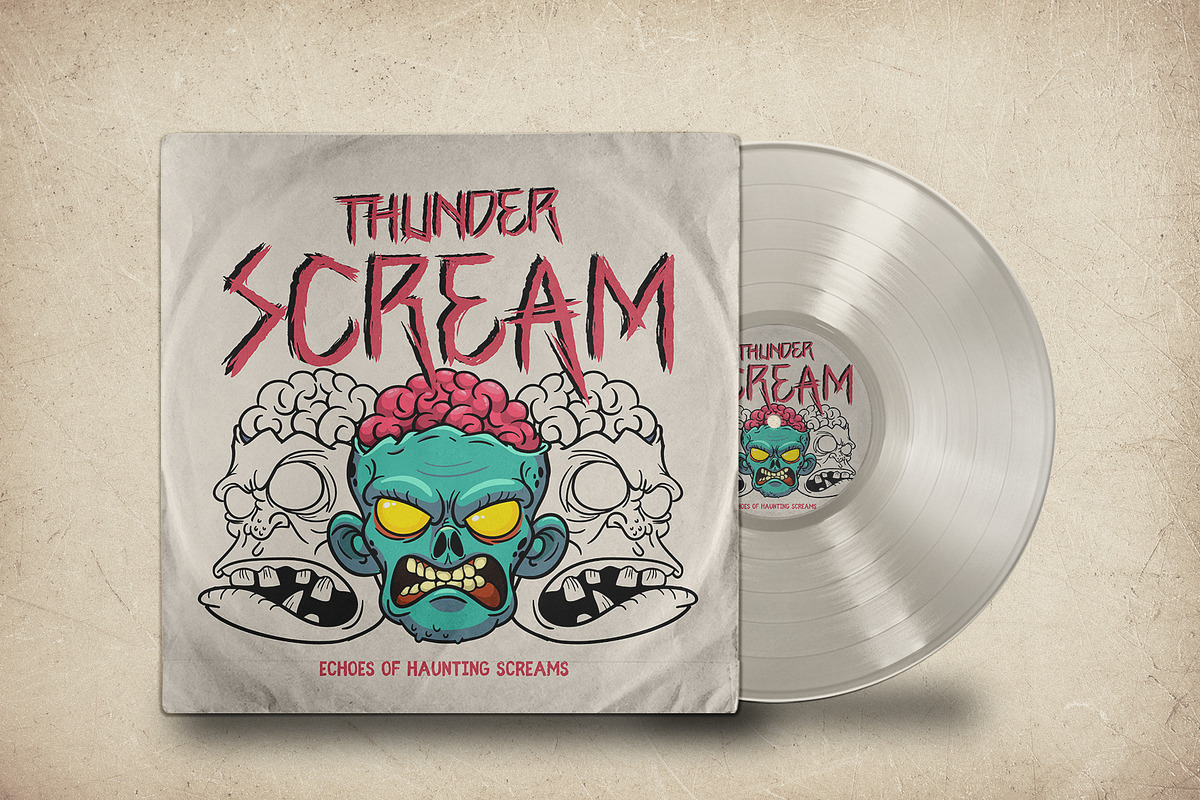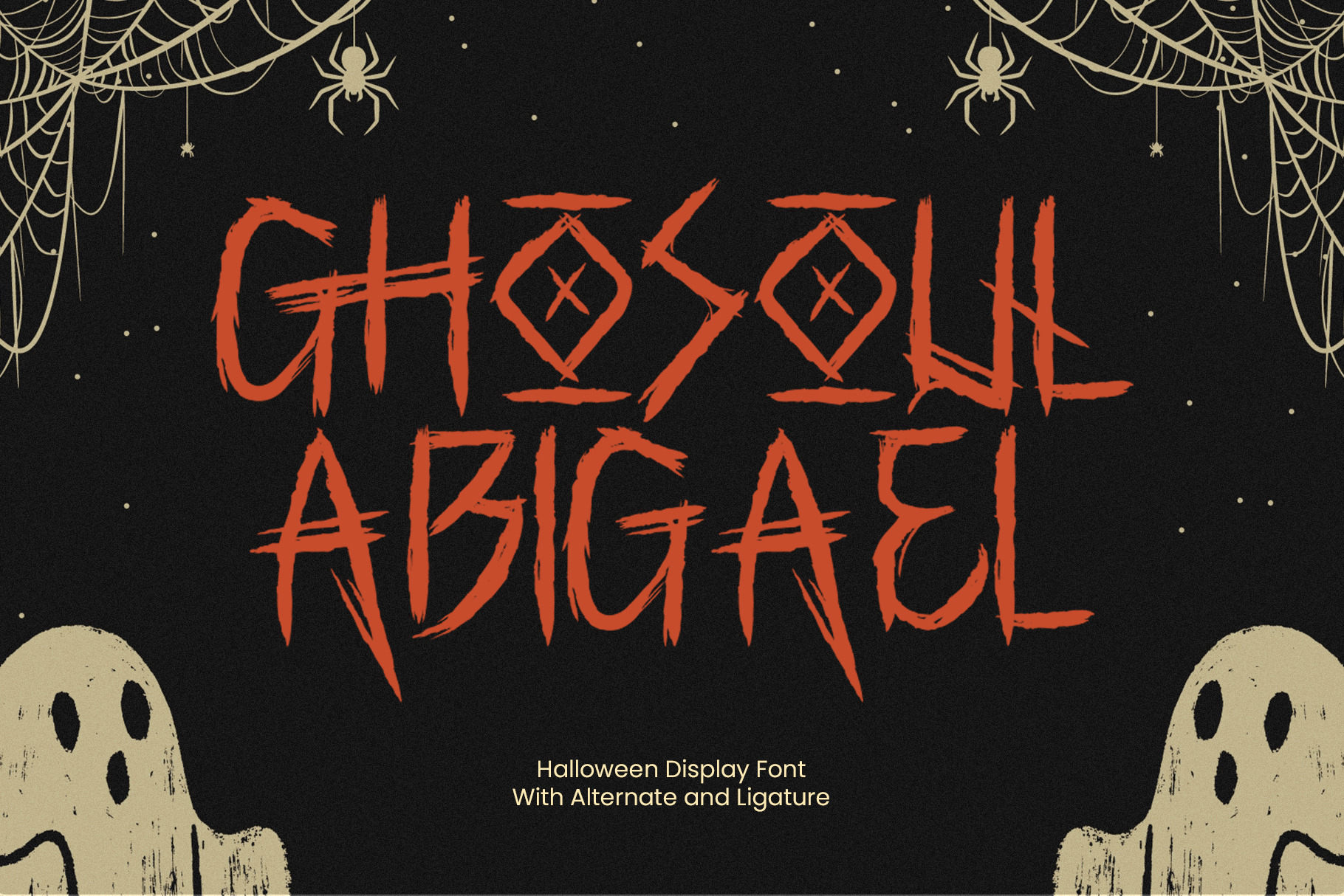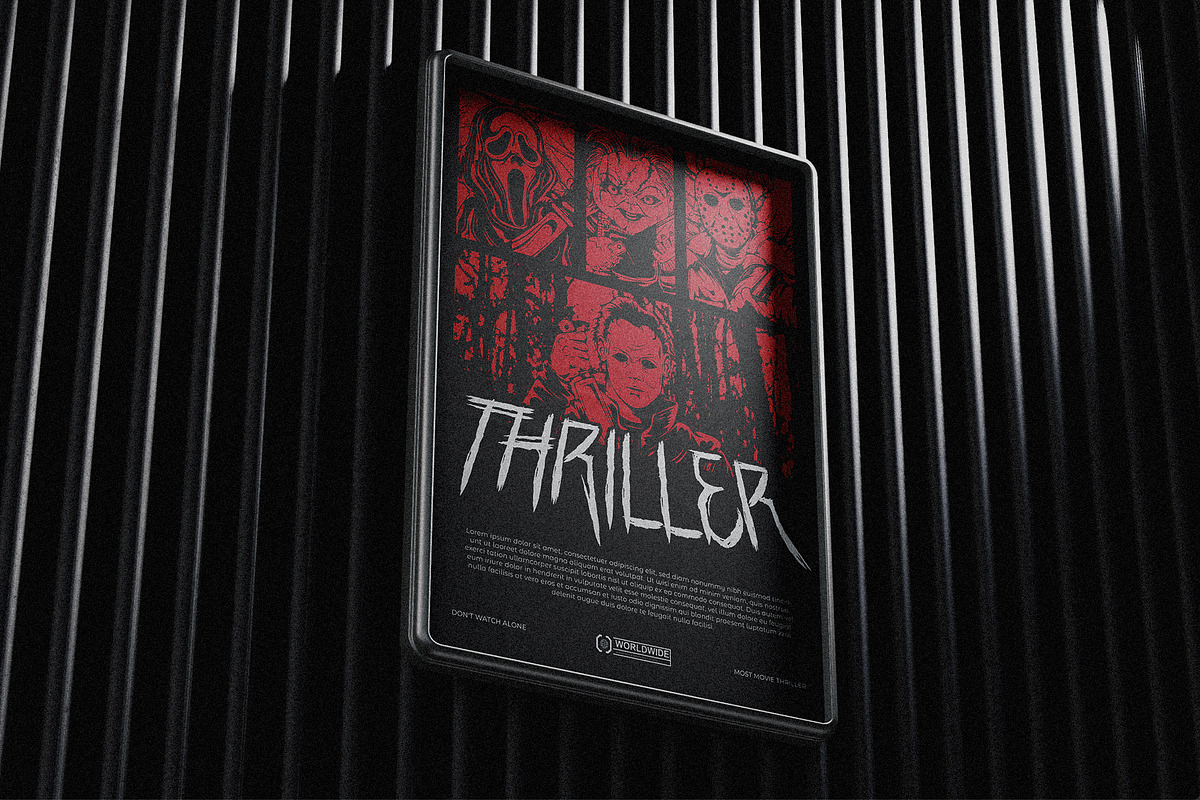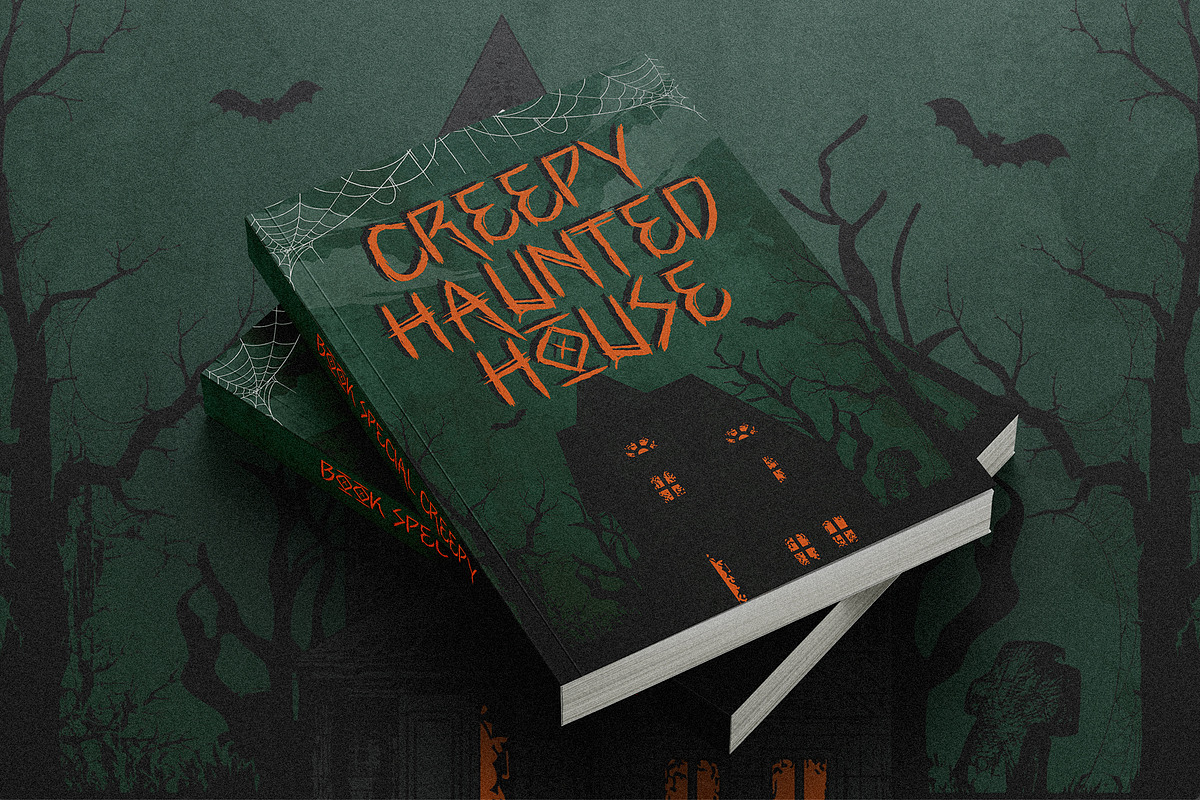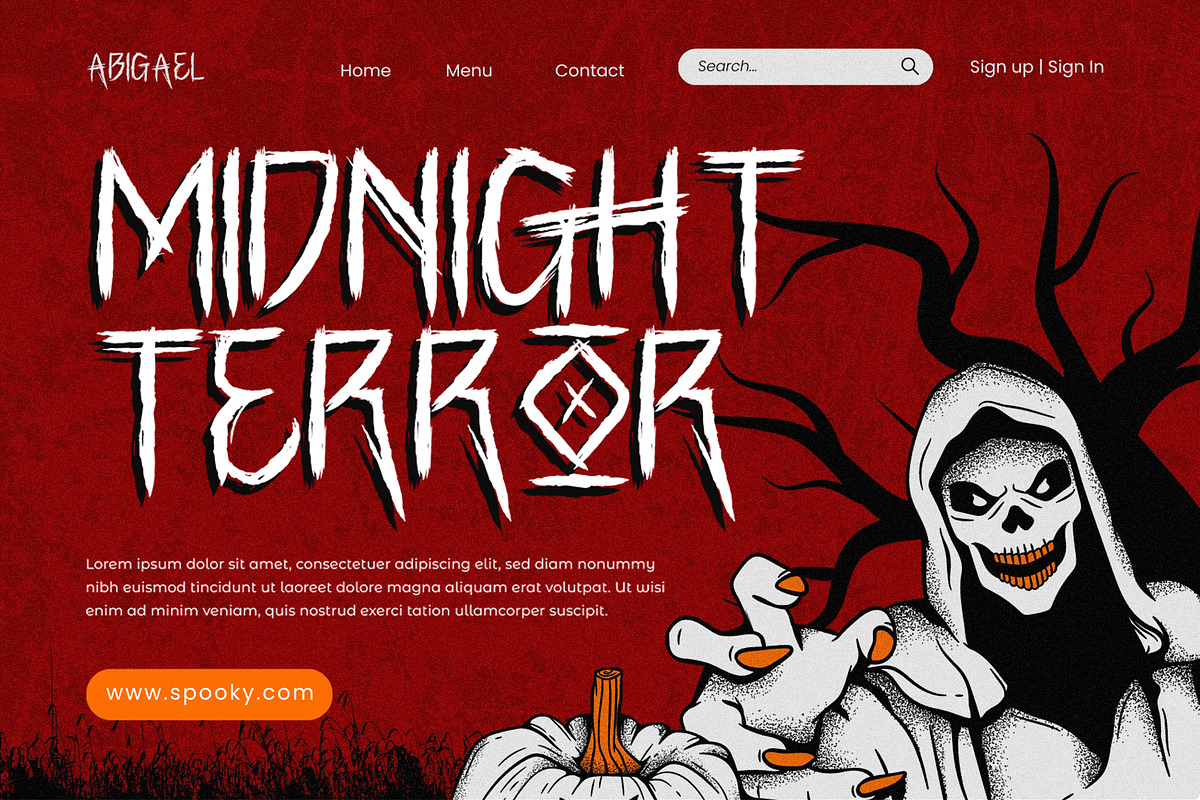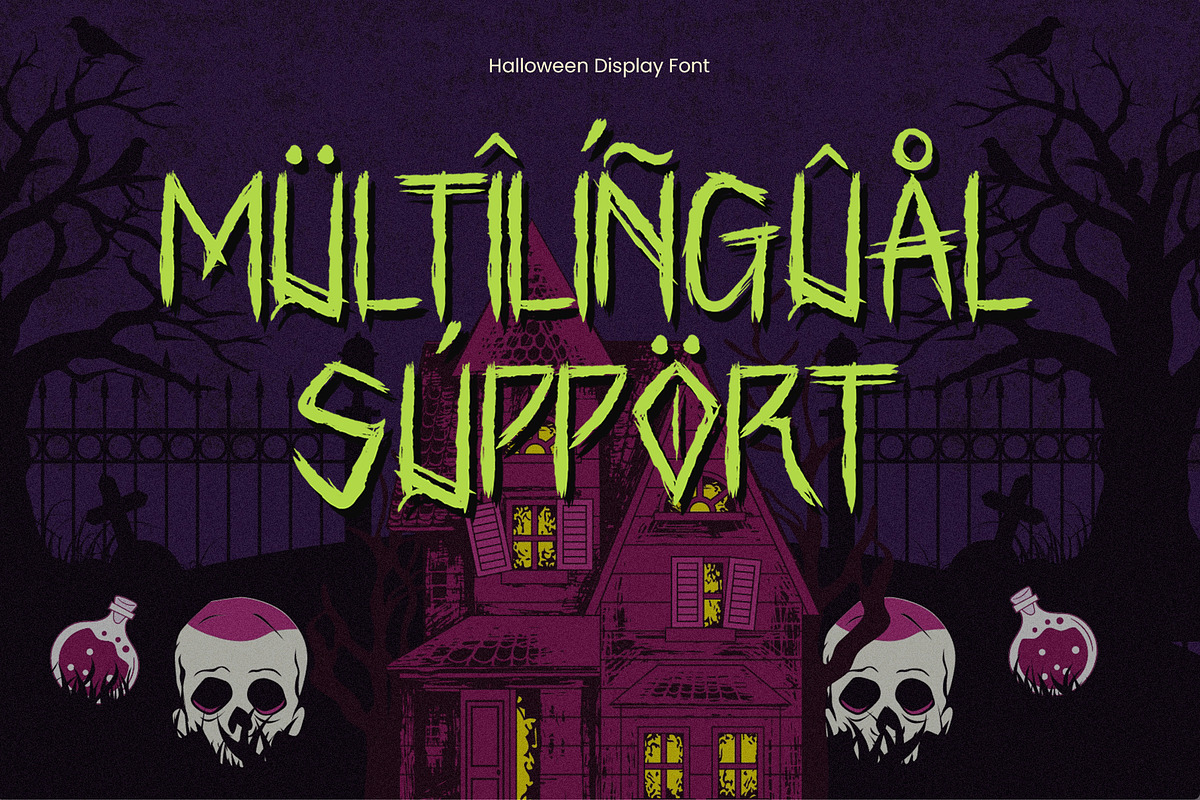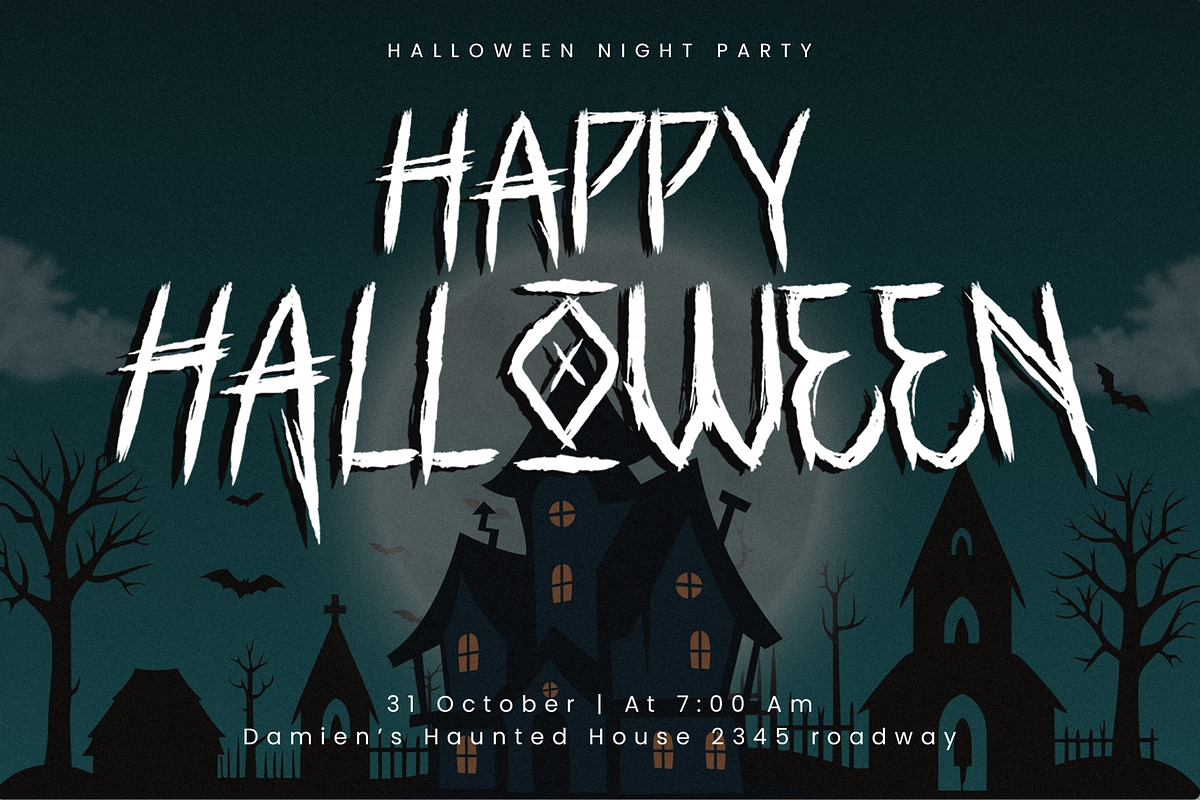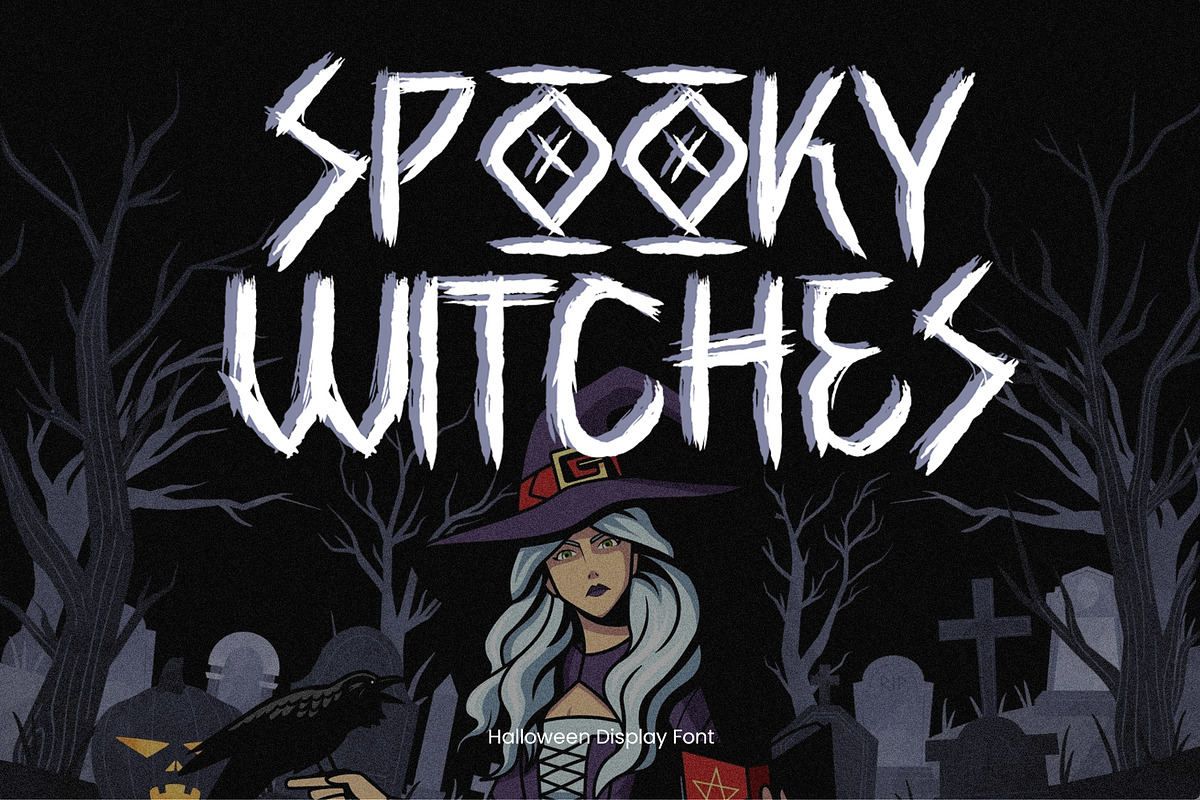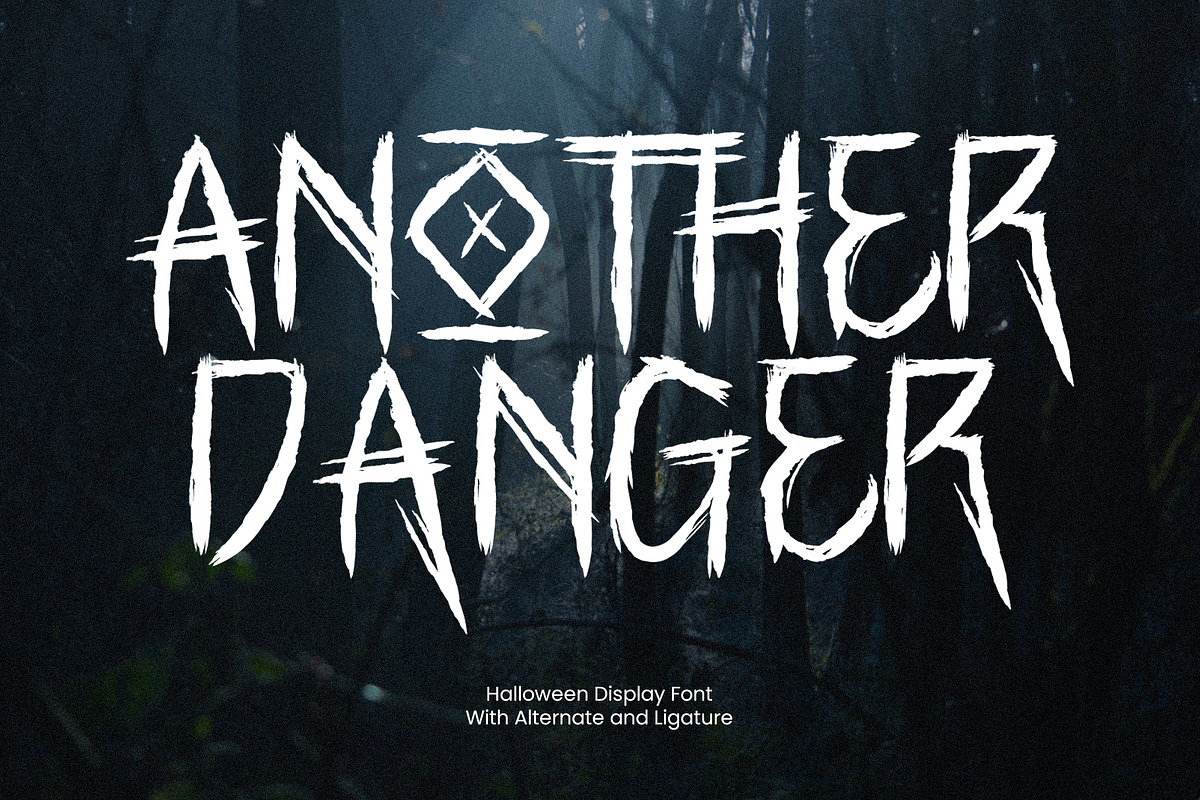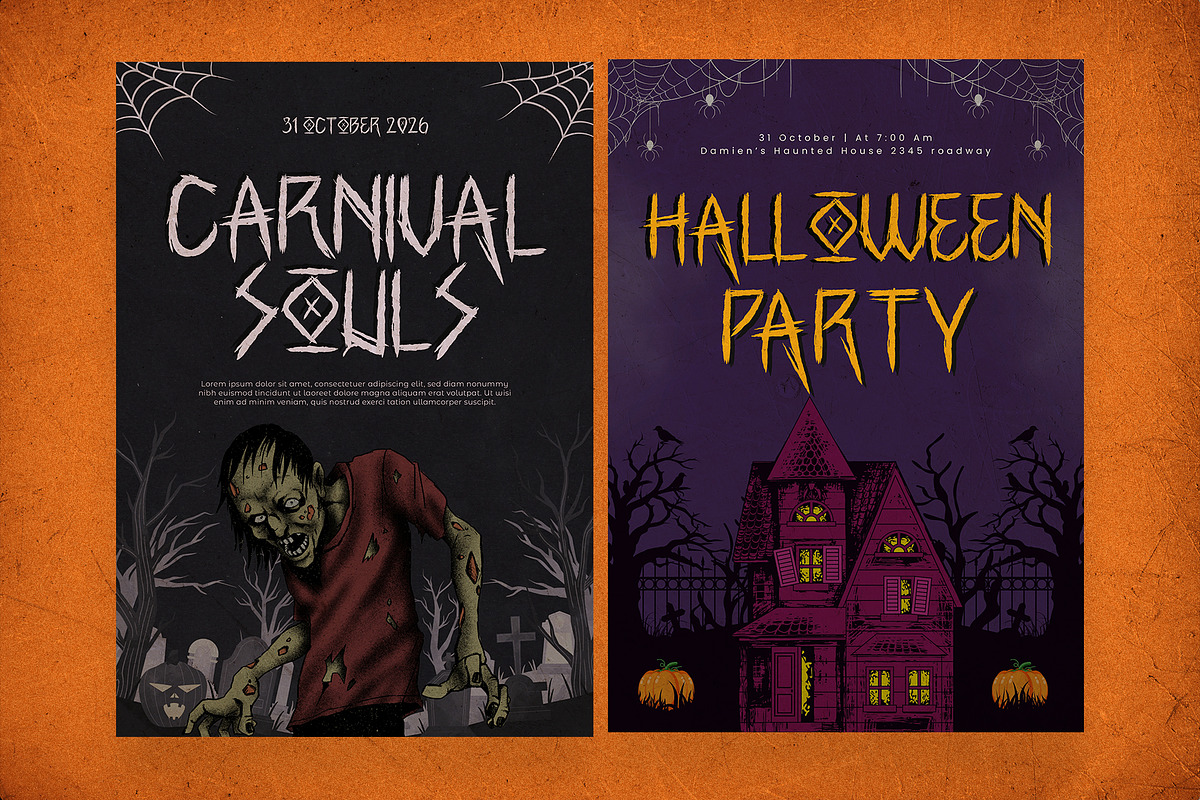
Ghosoul - Halloween Typeface
Playful yet creepy Halloween typeface featuring unique characters, perfect for horror-themed designs, party invitations, and spooky merchandise.